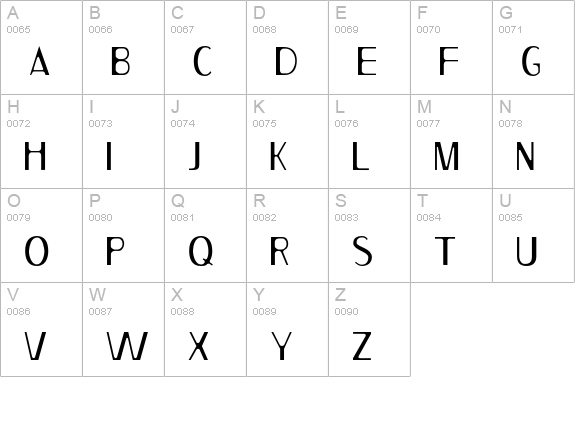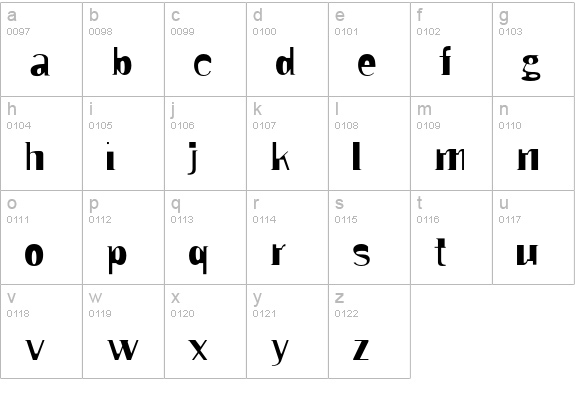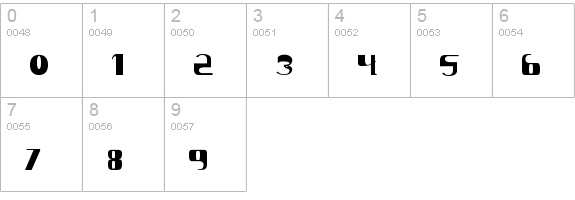
Colony Font Details
Colony font is a stylish and modern typeface that exudes a sense of sophistication and elegance. With its sleek and clean lines, Colony font is perfect for adding a touch of class to any design project. This versatile font is suitable for a wide range of applications, from branding and advertising to web design and print materials. What sets Colony font apart is not only its exceptional design but also the fact that it is completely free to use. Yes, you read that right - Colony font is freely available to download at FontsMarket.com. This means that you can add this beautiful font to your collection without breaking the bank. Whether you're a professional designer looking for a new font to add to your toolkit or a hobbyist looking to spice up your personal projects, Colony font is sure to impress. Download it today and see for yourself the impact this stunning font can have on your designs.